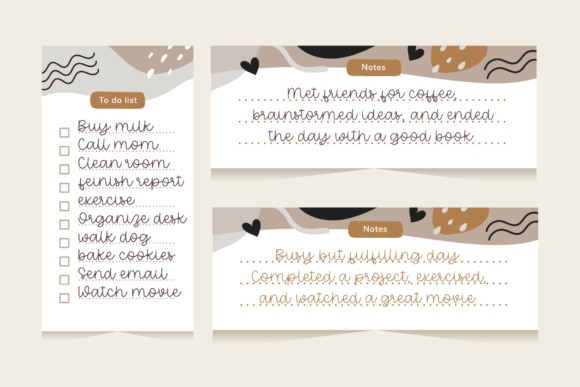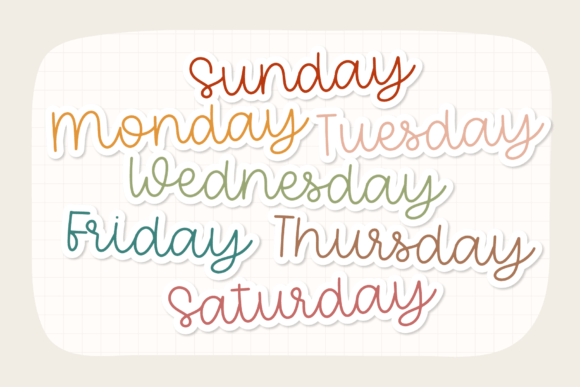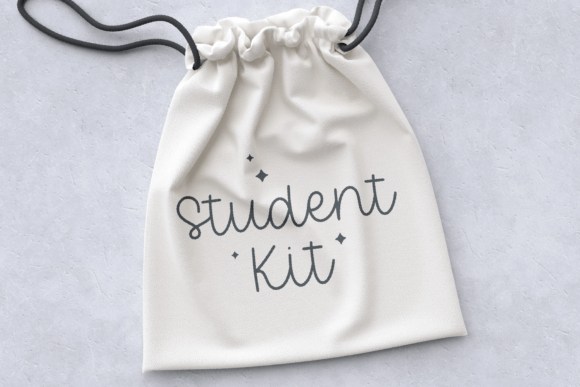
Memo Sketch Font: A Cute Handwritten Font for DIY & Crafts
About the Memo Sketch Font
Unleash your creativity with Memo Sketch Font, a versatile font perfect for a wide range of applications. Memo Sketch is a sweet and cute handwritten font. Fall in love with its incredibly versatile style and use it to create gorgeous wedding invitations, beautiful stationary art, eye-catching social media posts, and much more!
Memo Sketch’s playful, informal style is ideal for projects requiring a hand-drawn feel, such as branding for boutiques, children’s products, or social media campaigns targeting a younger demographic. It also works well for short headlines, invitations, and packaging where its charming character adds personality. However, its handwritten nature makes it unsuitable for body text or lengthy paragraphs, as readability suffers. Avoid using it in UI or situations demanding high legibility.
Pairing Memo Sketch effectively requires considering its informal energy. Consider a clean, geometric sans-serif like Futura or a modern serif such as Garamond for a balanced contrast. These pairings provide structure and sophistication that complement the font’s casual charm. Alternatively, a simple script font could add a layer of elegance, enhancing the overall aesthetic while maintaining a cohesive feel.
The font’s core personality is best described as friendly and approachable, yet subtly sophisticated. Its charm stems from the slight imperfections inherent in a handwritten style, creating a balance between handmade authenticity and visual appeal.
Memo Sketch Font Usage Examples
Memo Sketch Font Example